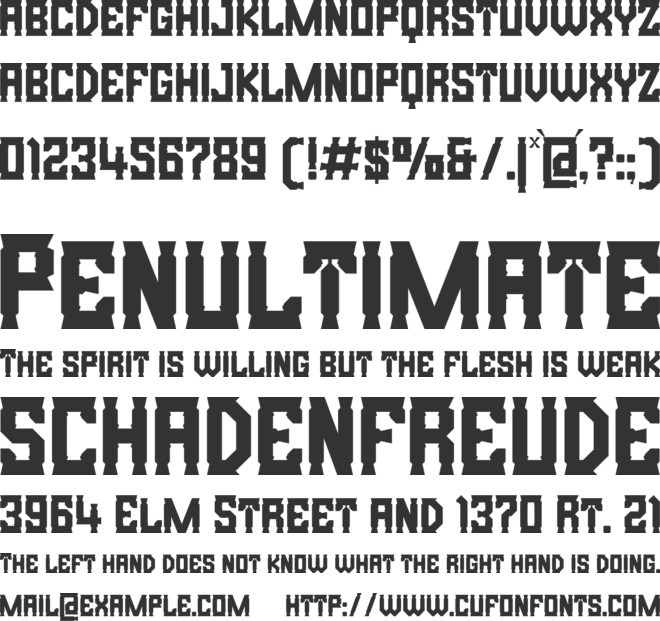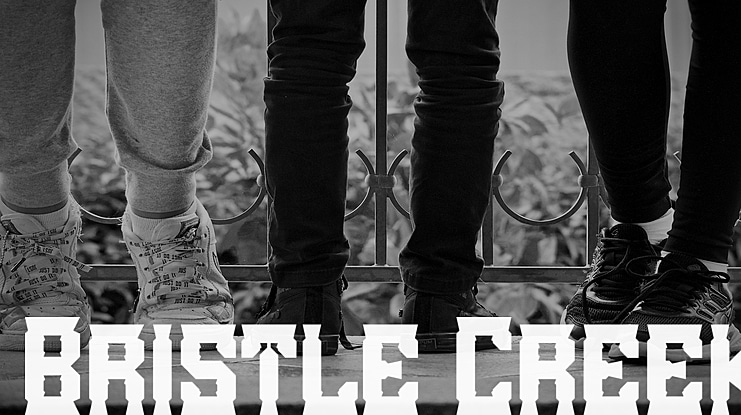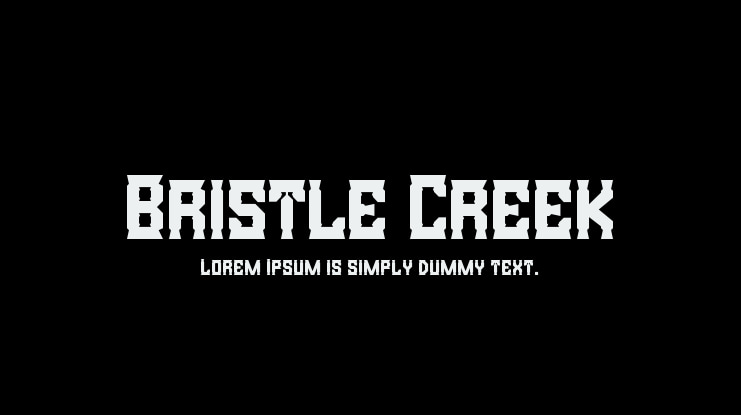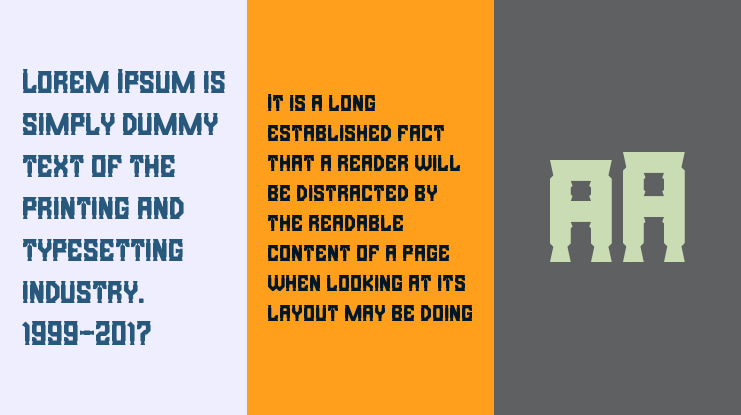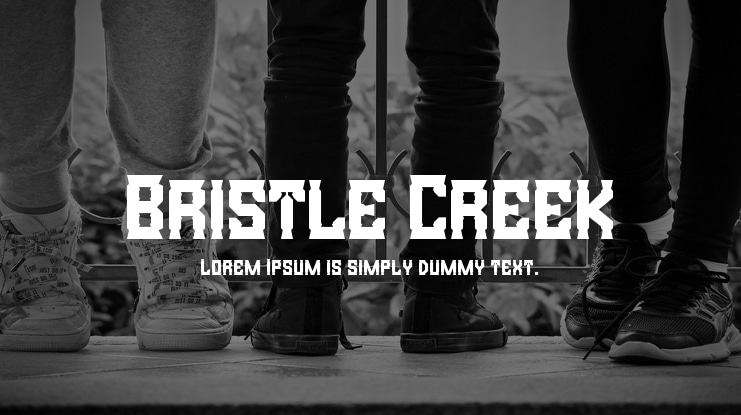
Bristle Creek Font Family
Introducing our new release, Bristle CreekFont. This typeset is perfect for brand logo, invitations, greeting card, or even any kind of project. With multilingual feature and style variations, this typeface would further enhance the aestethical aspect of your work.